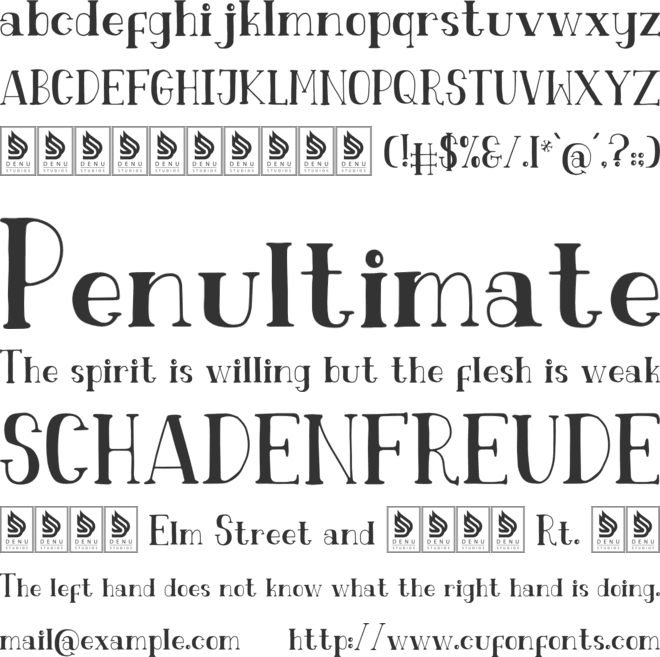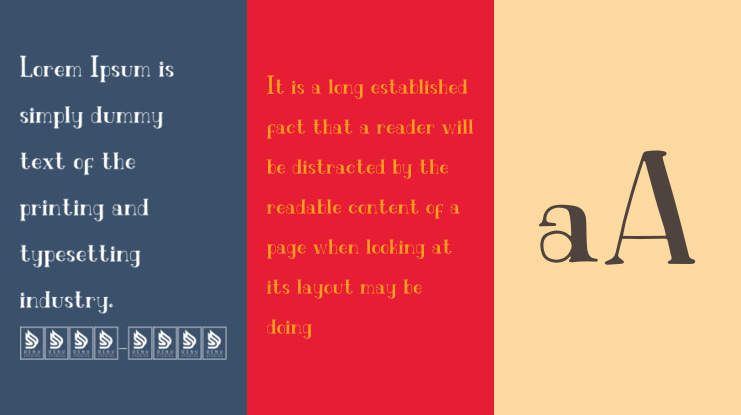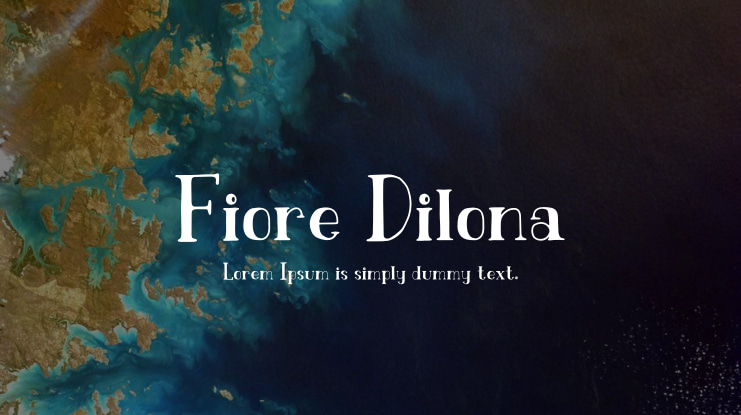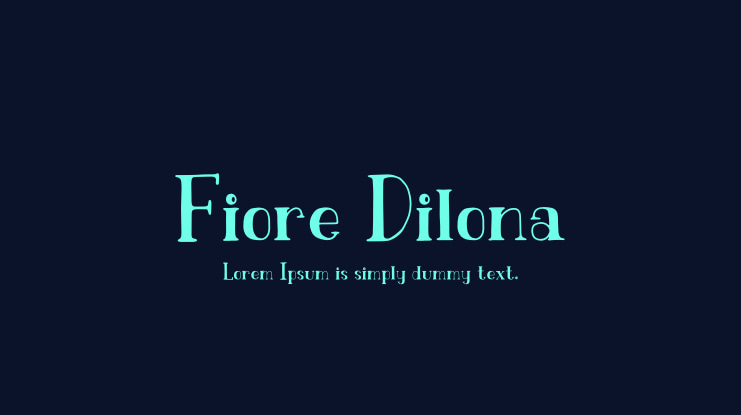
**Fiore Dilona | Hand Drawn Vintage**
Fiore Dilona is perfect for any project, including logos, branding projects, home décor designs, product packaging, mugs, quotes, posters, shopping bags, t-shirts, book covers, name cards, invitation cards, greeting cards, labels, photography watermarks, special events, and other creative endeavors requiring a hand-drawn vintage touch.